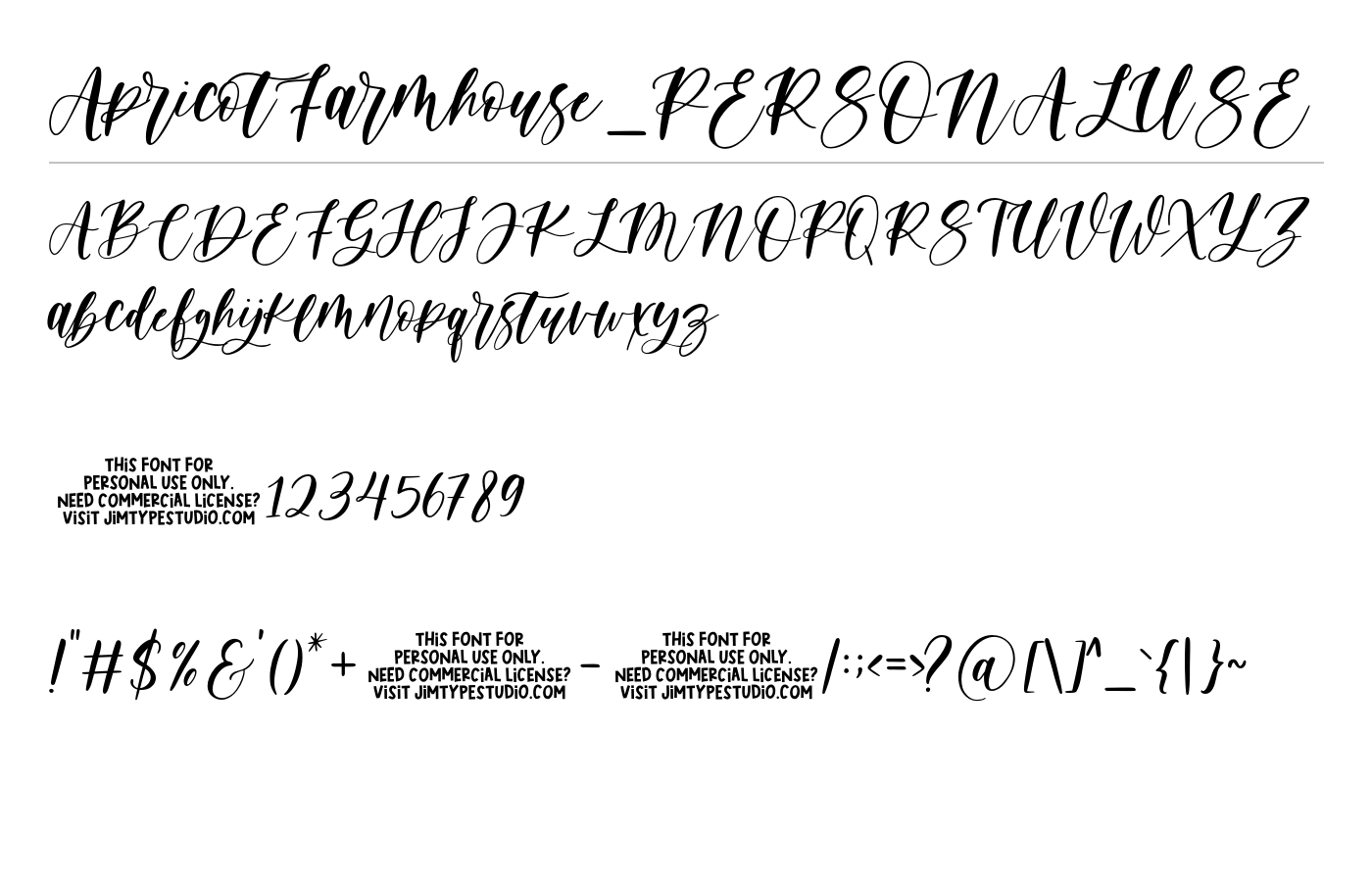
ApricotFarmhouse_PERSONALUSE is an elegant script font with a flowing, hand-lettered style that combines thin and thick strokes to create a graceful yet lively appearance. Its high-contrast, cursive letterforms with delicate swashes and loops give it a charming and personal feel, perfect for invitations, branding, and feminine design projects. This font works beautifully in headlines and decorative text where a warm, sophisticated, and artisanal touch is desired.
ApricotFarmhouse_PERSONALUSE Font
About ApricotFarmhouse_PERSONALUSE Font